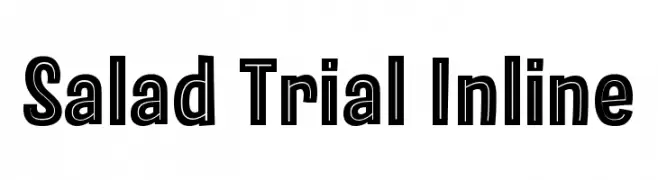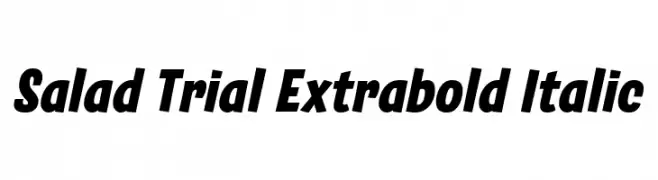
A bold, modern sans-serif font with rounded edges and consistent weight.
A clean, modern sans-serif font with a light weight and slightly condensed style.
A bold, modern font with thick strokes and tight spacing, ideal for headlines.
A bold, playful font with an inline style that adds depth and character.
A sleek, modern italic font with clean lines and medium contrast.
A sleek, minimalist font with thin, elongated letterforms and a modern aesthetic.
A modern, light sans-serif font with a sleek, minimalist design.
A bold, slightly condensed modern font with geometric influences.
A bold, italic font with a dynamic and modern style.
A clean, modern sans-serif font with a slightly condensed style.